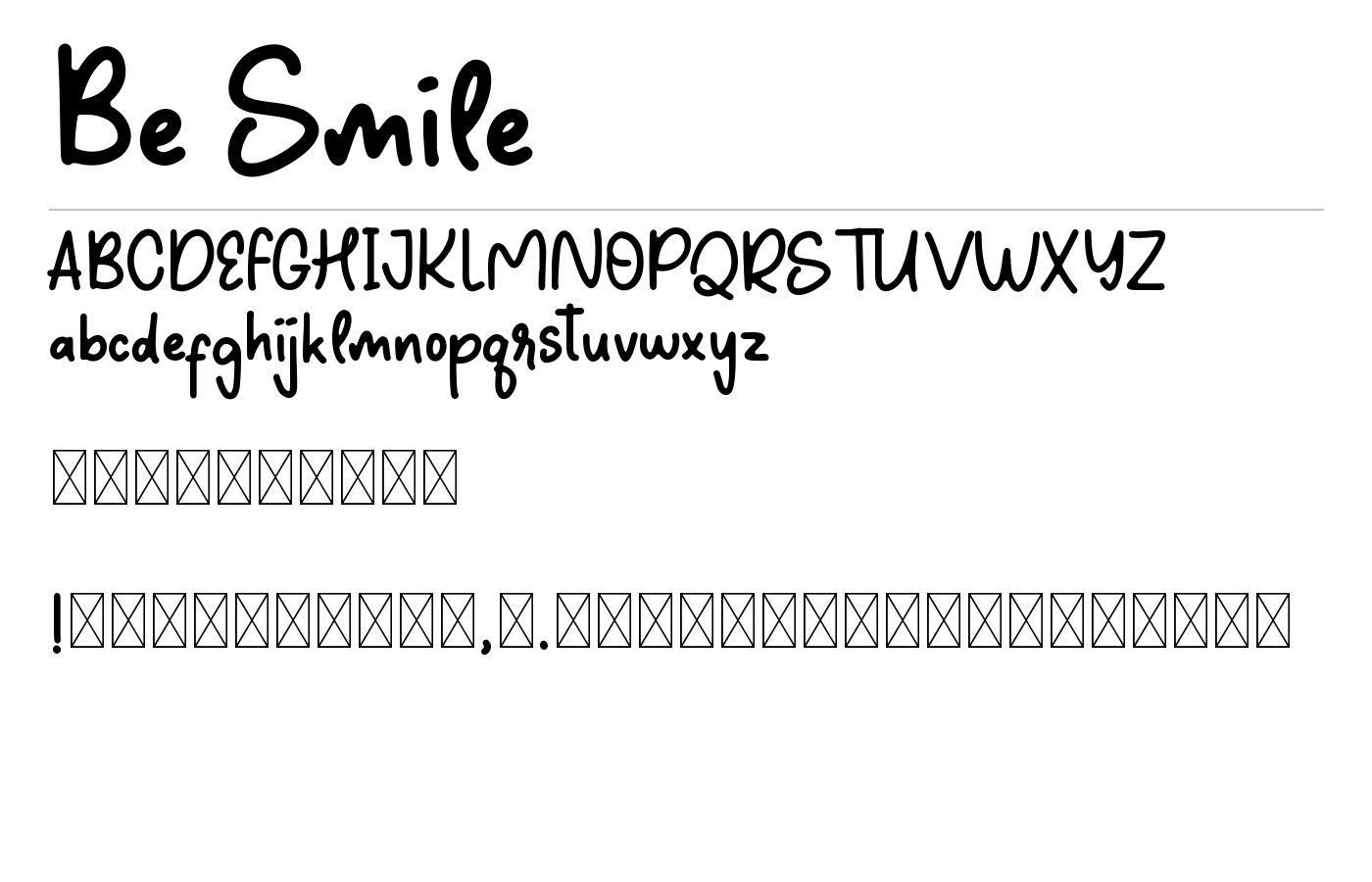
Be Smile is a playful and casual handwritten sans serif font with a friendly and approachable style. Its rounded strokes and lively letterforms create a warm, informal feel that works well for fun branding, children's materials, and creative projects. This font is ideal for designs that aim to convey cheerfulness and personality in a relaxed, readable way.
| Font family | Be Smile Font |
| Designer | Ana Natalia |